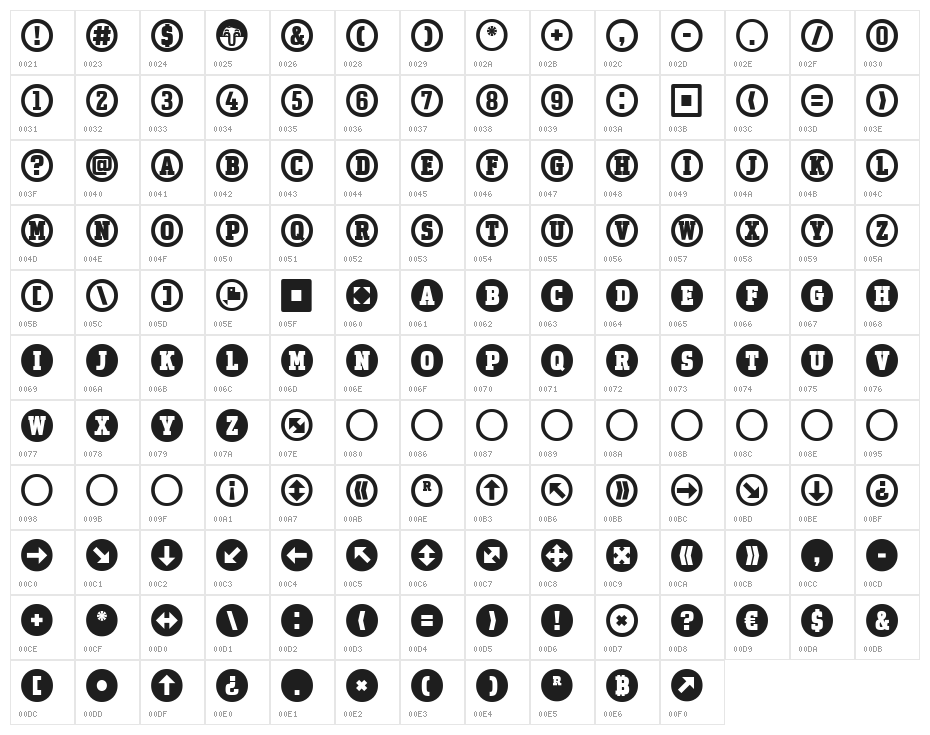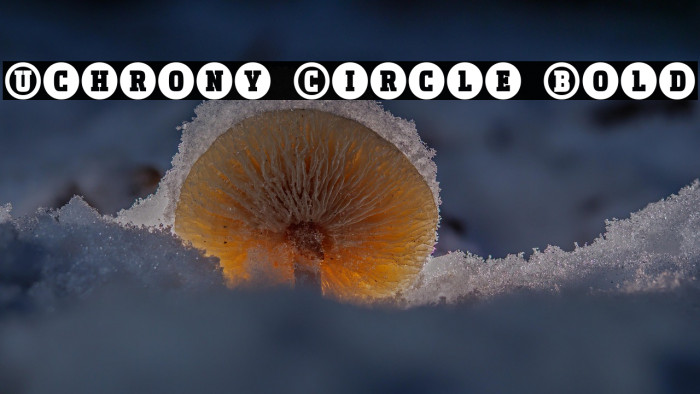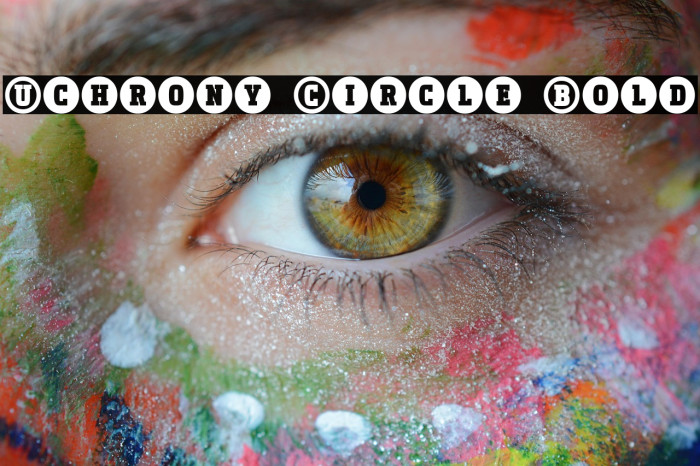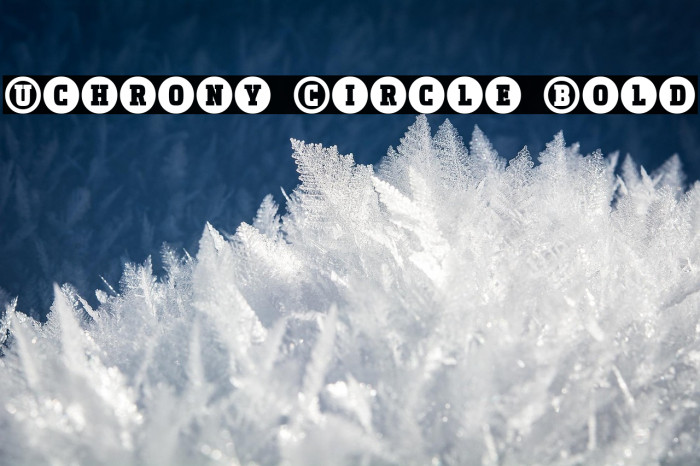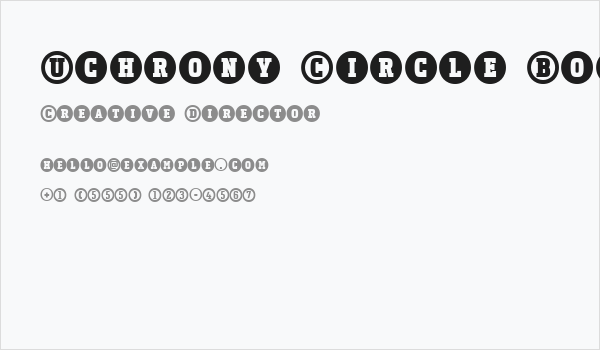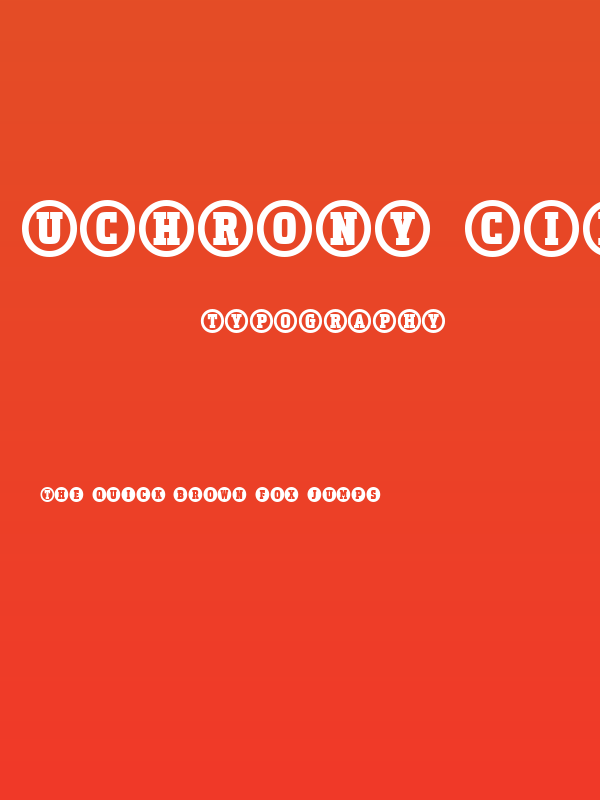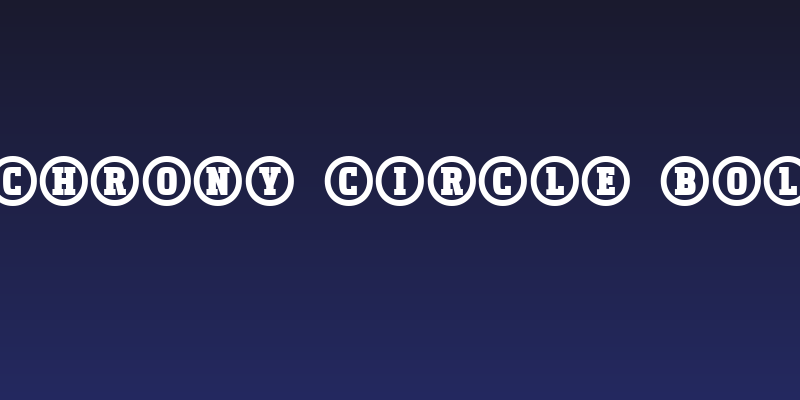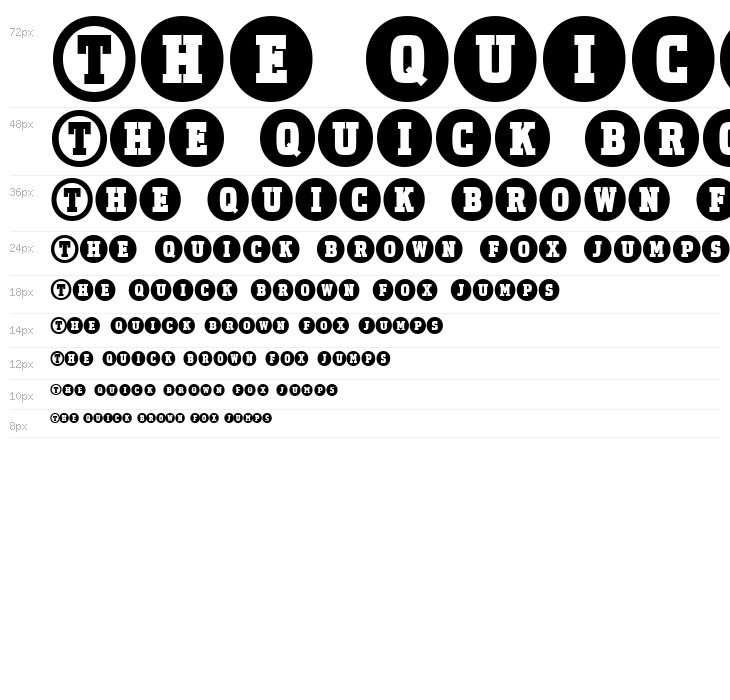
Uchrony Circle Bold Font
Uchrony Circle Bold Description
This bold and striking font features characters enclosed within perfect circles, creating a distinct and eye-catching appearance. The letters are bold and uniform, with a strong presence that makes them ideal for attention-grabbing designs. The uppercase and lowercase letters maintain a consistent style, while the numbers and special characters follow the same circular enclosure, ensuring a cohesive look across all elements. The font's geometric nature and bold weight make it suitable for modern and impactful design projects.
| Proposed Projects | Ideal for logo design, posters, headlines, and branding materials where a bold statement is needed. |